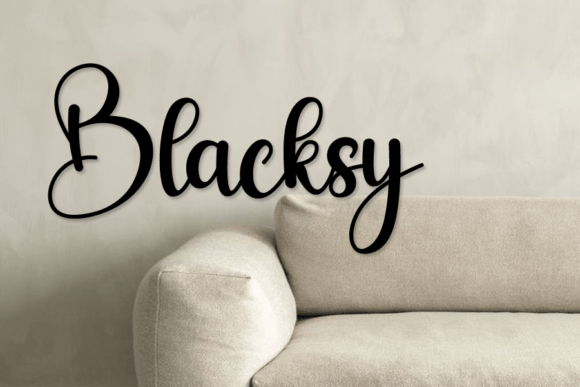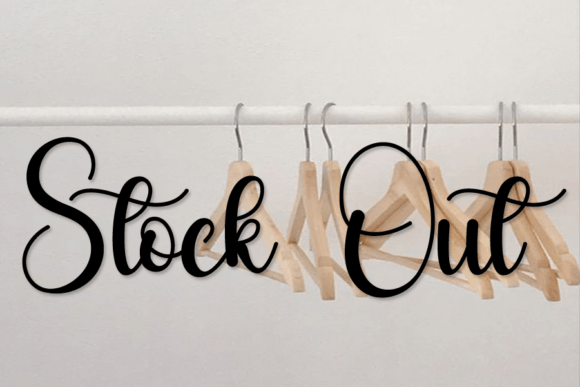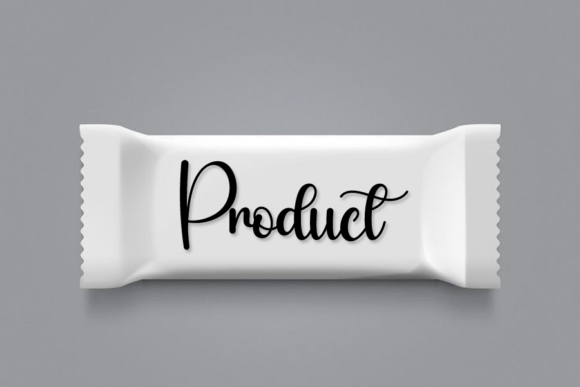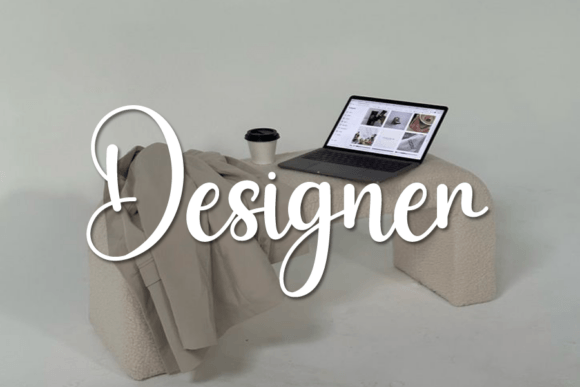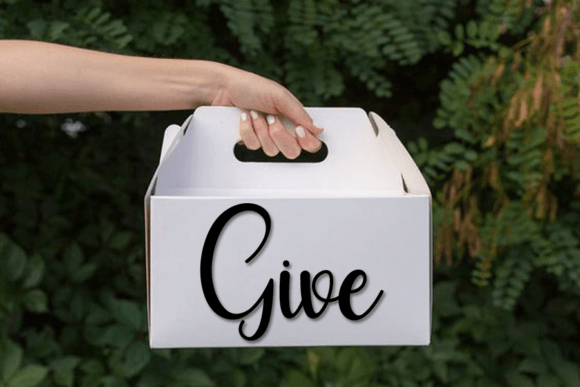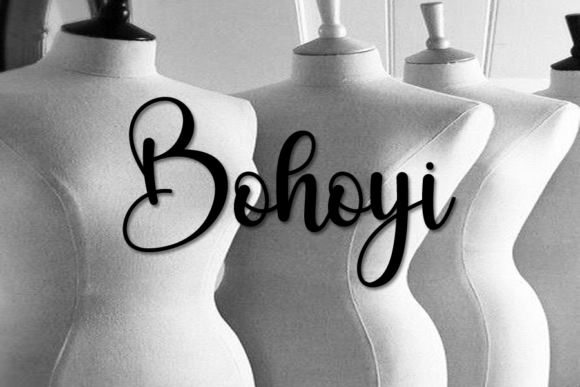
When Words Become Works of Art
Have you ever been brainstorming a creative project, and suddenly, the perfect font pops into your mind? For many designers, this is the moment when inspiration strikes, and the project begins to take shape. This time, it was the Buenos Soulmate Font that captured my attention. Its elegant and charming script style has a way of elevating any design, adding a touch of sophistication and warmth.
This beautiful handwritten font is perfect for designers who want to add a personal touch to their projects. Whether it’s a wedding invitation, a brand identity, or a social media post, Buenos Soulmate Font brings a sense of creativity and charm to any design. Its fluid strokes and natural flow make it a valuable addition to any designer’s toolkit.
Buenos Soulmate Font Key Features
• Unique Characteristics: Buenos Soulmate Font features a unique blend of modern and vintage elements, with intricate details and ornate flourishes.
Buenos Soulmate Font Review
I recently had the chance to work with the Buenos Soulmate Font, and I must say, it’s an interesting addition to any design project. Here are my honest thoughts on this font.
• Unique aesthetic: Buenos Soulmate Font has a distinctive, hand-painted look that can add a touch of whimsy to your designs.
• High legibility: Despite its artistic feel, the font remains highly legible, making it suitable for a wide range of applications.
• Support for multiple languages: The font includes support for multiple languages, including English, Spanish, and many others.
• Limited font styles: While Buenos Soulmate Font has several weights, it’s lacking in terms of font styles, such as italics or bold italics.
• Not ideal for small text: Due to its decorative nature, Buenos Soulmate Font may not be the best choice for small text or body copy.
Buenos Soulmate Font is a fun and creative addition to any design project, but it may not be the best choice for every situation. If you’re looking for a unique, eye-catching font for a specific project, Buenos Soulmate Font is definitely worth considering. However, if you need a more versatile font for everyday use, you may want to look elsewhere.
The Buenos Soulmate font is perfect for creating elegant and sophisticated designs, such as:
• Wedding invitations and stationery
• Business cards and branding materials
• Event flyers and posters
• Personalized gifts and stationery
Remember to experiment with different font sizes, colors, and styles to get the most out of the Buenos Soulmate font.